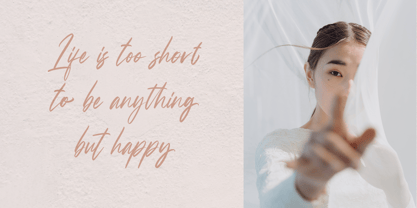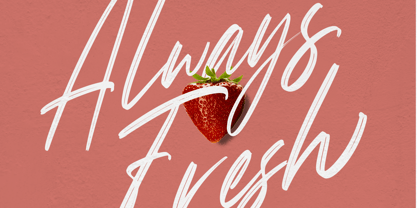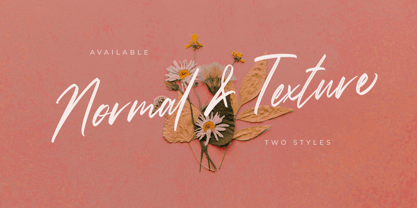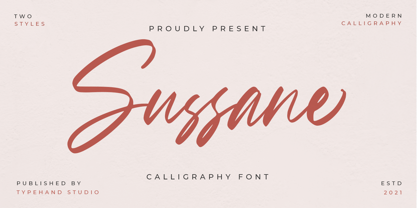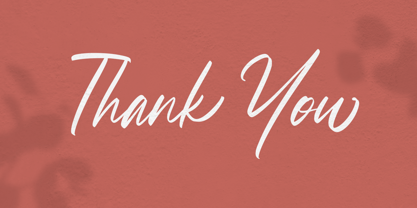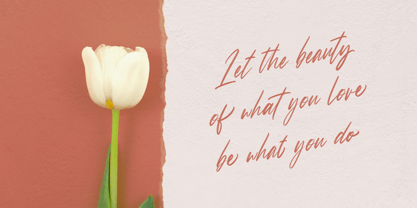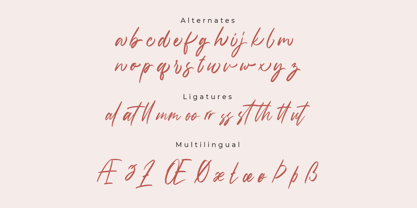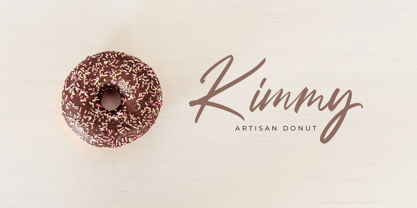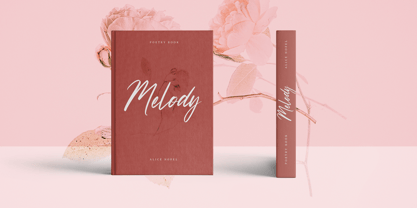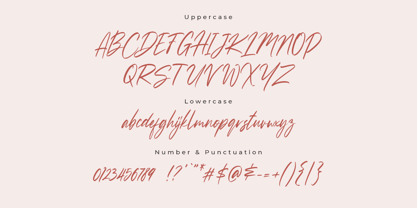
Sussane
por Typehand Studio
A família de fontes Sussane foi desenhada por Ahmad Gozali, Yanuar Adi e publicada pela Typehand Studio. Sussane contém 2 estilos e opções de pacote familiar. Saiba mais sobre esta família
Susanne is a modern calligraphy script font crafted with elegance and versatility. Designed in two unique styles – Regular with a clean look, and Texture featuring a stylish center-line detail – Susanne brings a perfect balance of charm and sophistication to your projects.
This script font includes ligatures, alternates, and 68+ multilingual supports, making it a powerful choice for global design needs. Whether you’re working on branding, invitations, logos, merchandise, websites, advertisements, or magazines, Susanne delivers a casual yet professional touch that enhances every design.
Bring personality to your creative projects with Susanne – the script font that combines modern calligraphy style with timeless appeal.
Designers: Ahmad Gozali, Yanuar Adi
Sussane